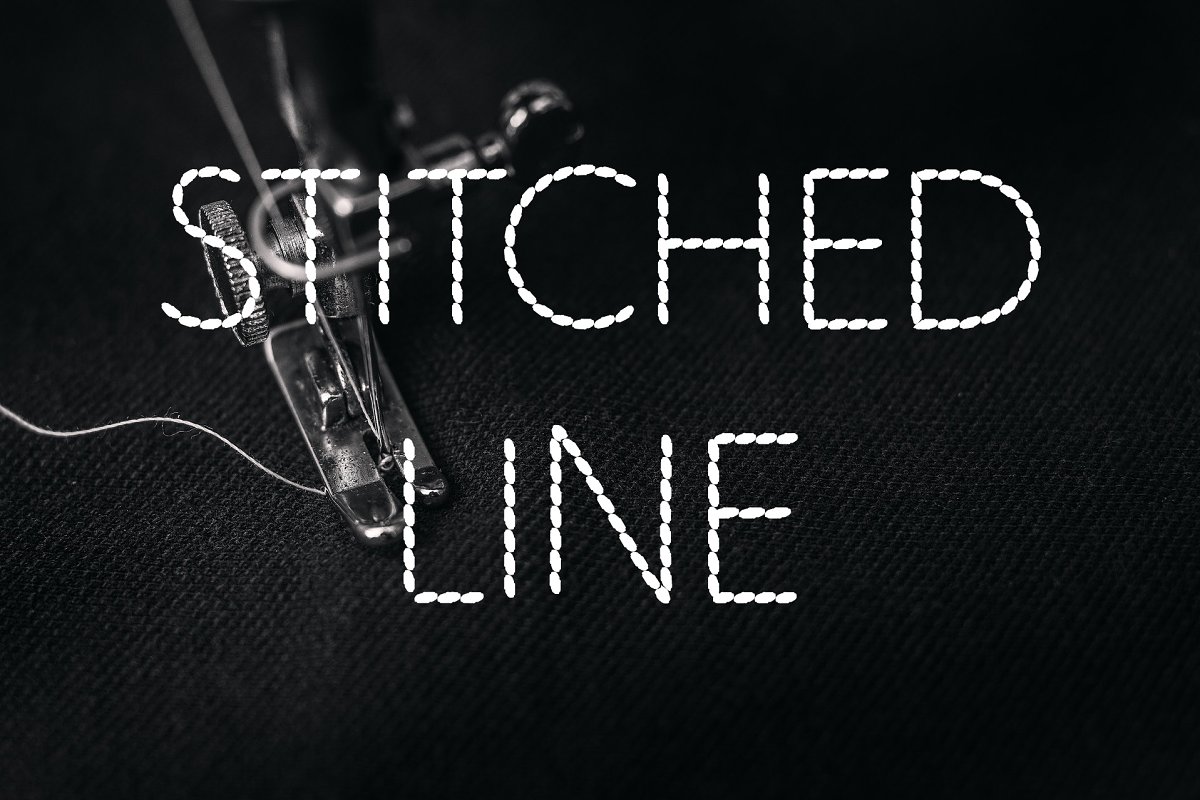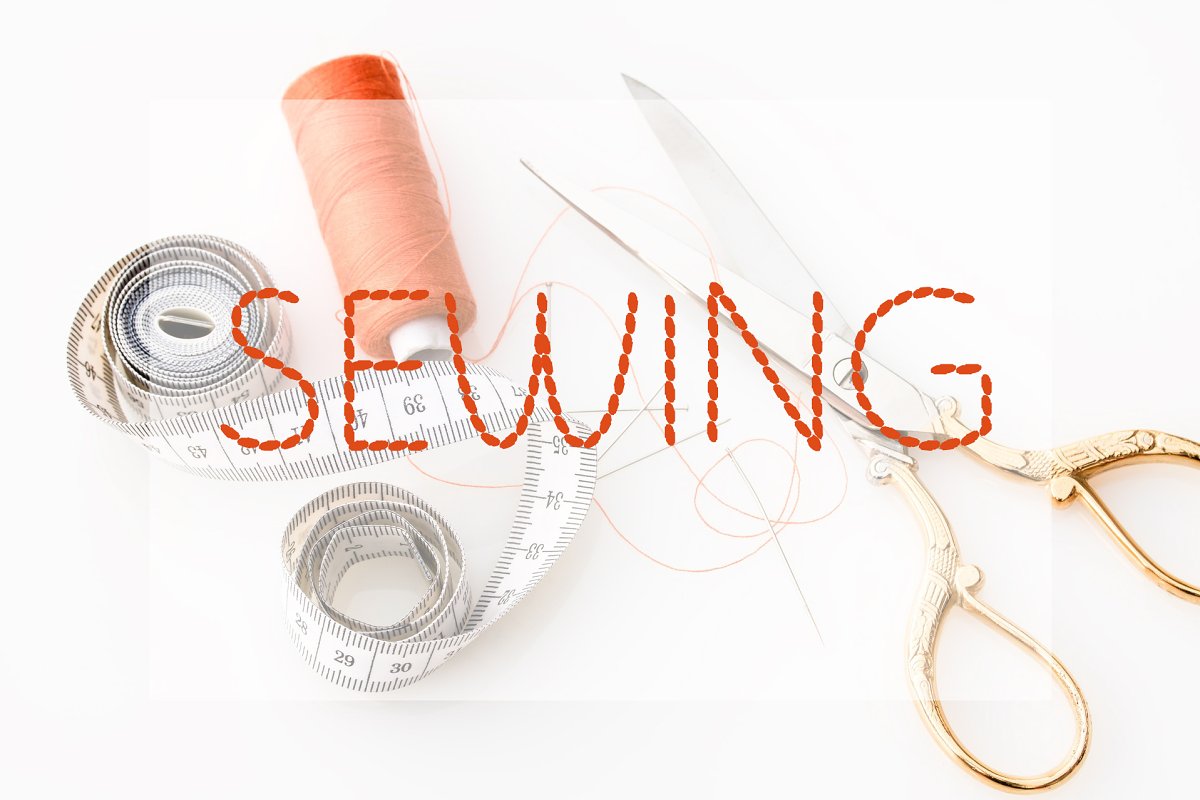
About the Stitched Line Font
Stitched Line Typeface, Cool looking dashed typeface, Stitched Line is an incredibly unique and simple display font, Get inspired by its incredibly versatile style and use it to create lovely designs!Great for posters, embroidery craft, invitations, art and crafts, T-Shirts and more, It contains , ttf, , otf and , woff font files,